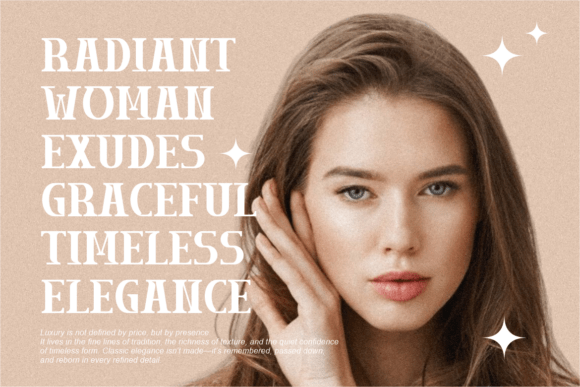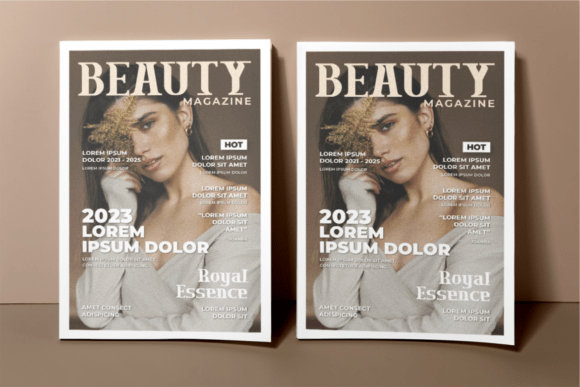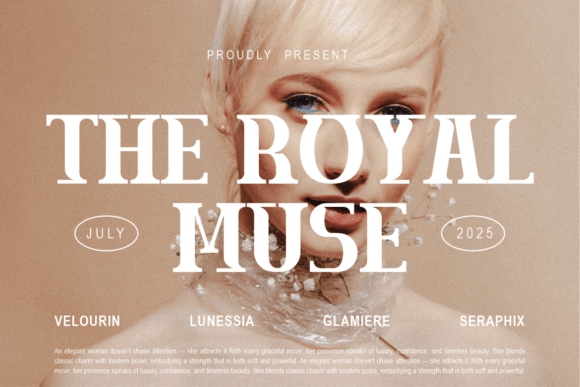
Introduction to Luxerna Display Font
Luxerna Display is a sophisticated typeface that embodies the essence of modern elegance and classic luxury.
Designed with sharp transitional serifs and a confident high-contrast weight, this font draws inspiration from heritage typography often seen in upscale branding, couture magazines, and timeless editorials Each character in Luxerna Display is meticulously crafted with subtle curves and exaggerated terminals, striking a balance between traditional refinement and contemporary flair.
Key Features of Luxerna Display Font
Why Choose Luxerna Display Font?